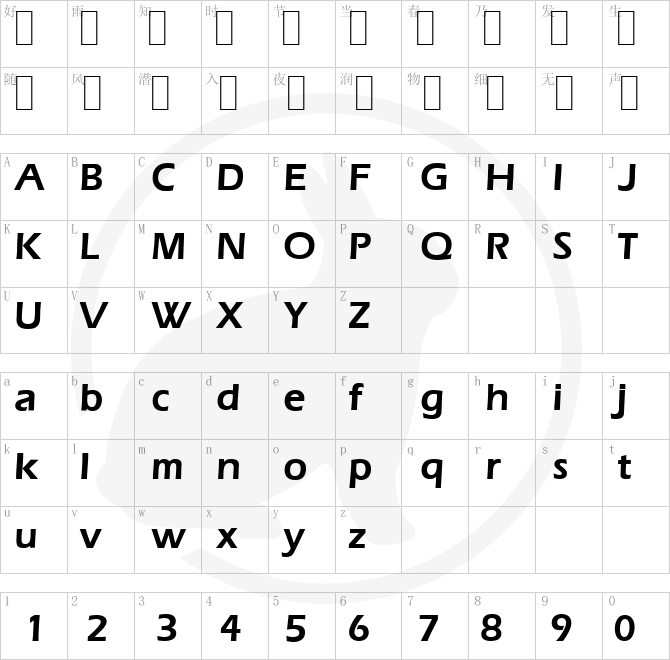
- Font Name:E820-Sans-Demi
E820-Sans-Demi-Regular.ttf is a very beautiful artistic font, E820-Sans-Demi-Regular.ttf is widely used in the design and printing of various books and pictures,E820-Sans-Demi-Regular.ttf has a strong visual impact,E820-Sans-Demi-Regular.ttf is a commonly used font in newspapers, magazines and books, and is used in posters, e-commerce Poster design, store design, logo design, font design and other fields.E820-Sans-Demi-Regular.